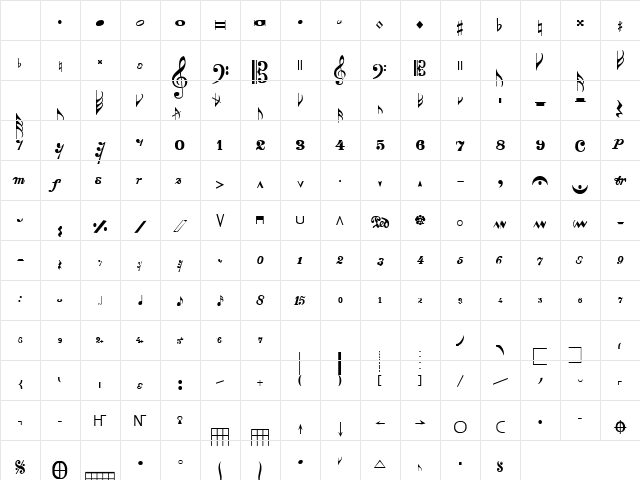
Leipzig Normal Free Font
Leipzig Normal
Design Context for Leipzig
Leipzig is a composed and adaptable typeface that performs quietly and consistently across a wide range of design contexts.